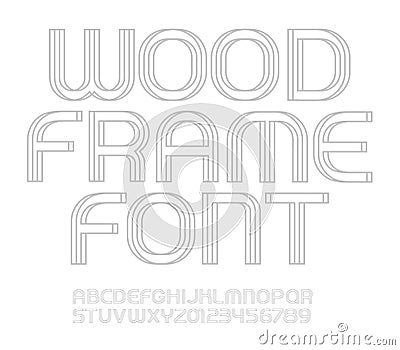
Linear frame letters and numbers set. Wood textured lines style vector latin alphabet. Outline Font for events #161303083
Linear frame letters and numbers set. Wood textured lines style vector latin alphabet. Outline Font for events, promotions, logos, banner, monogram and poster. Contour Typography design